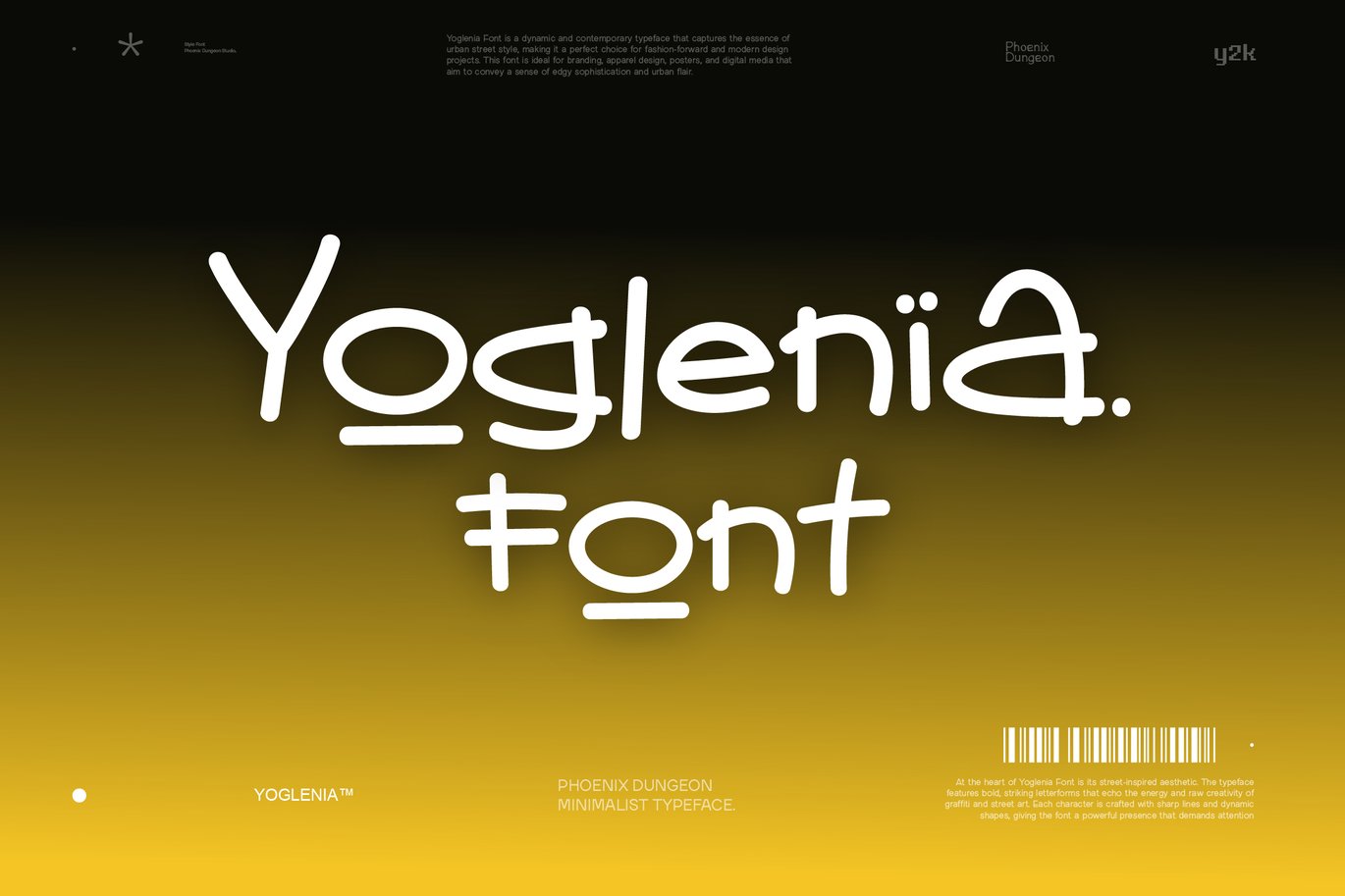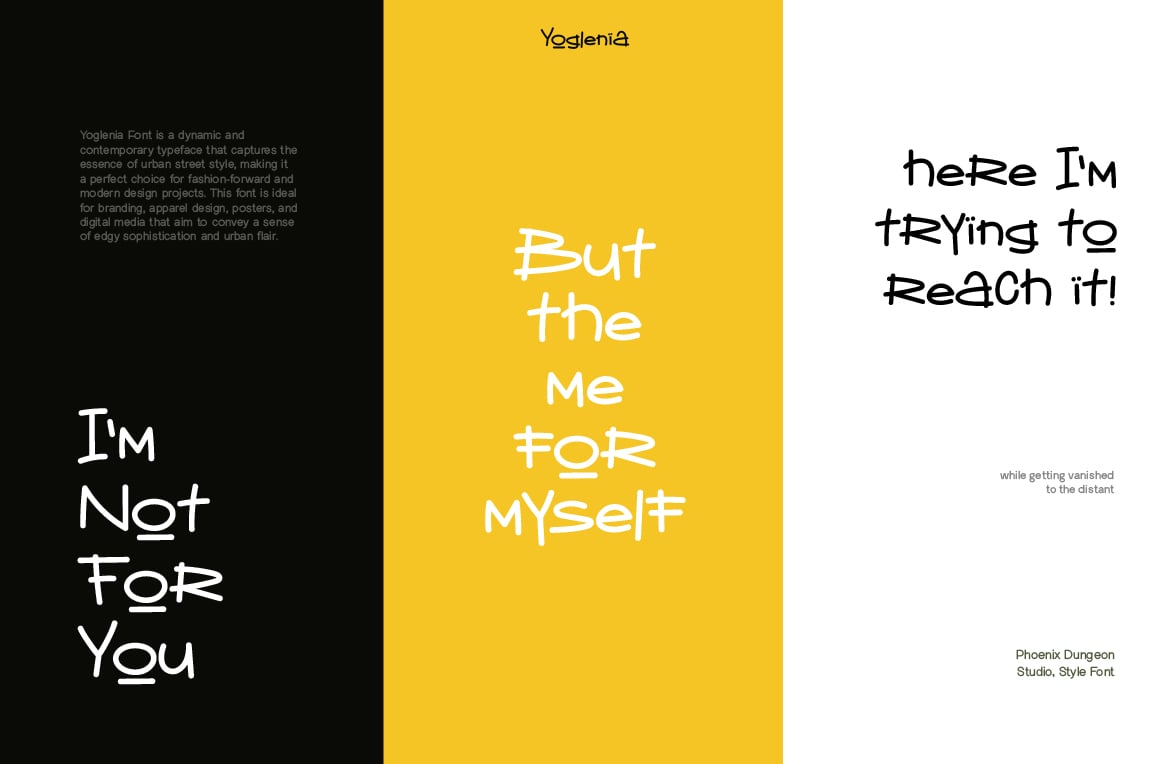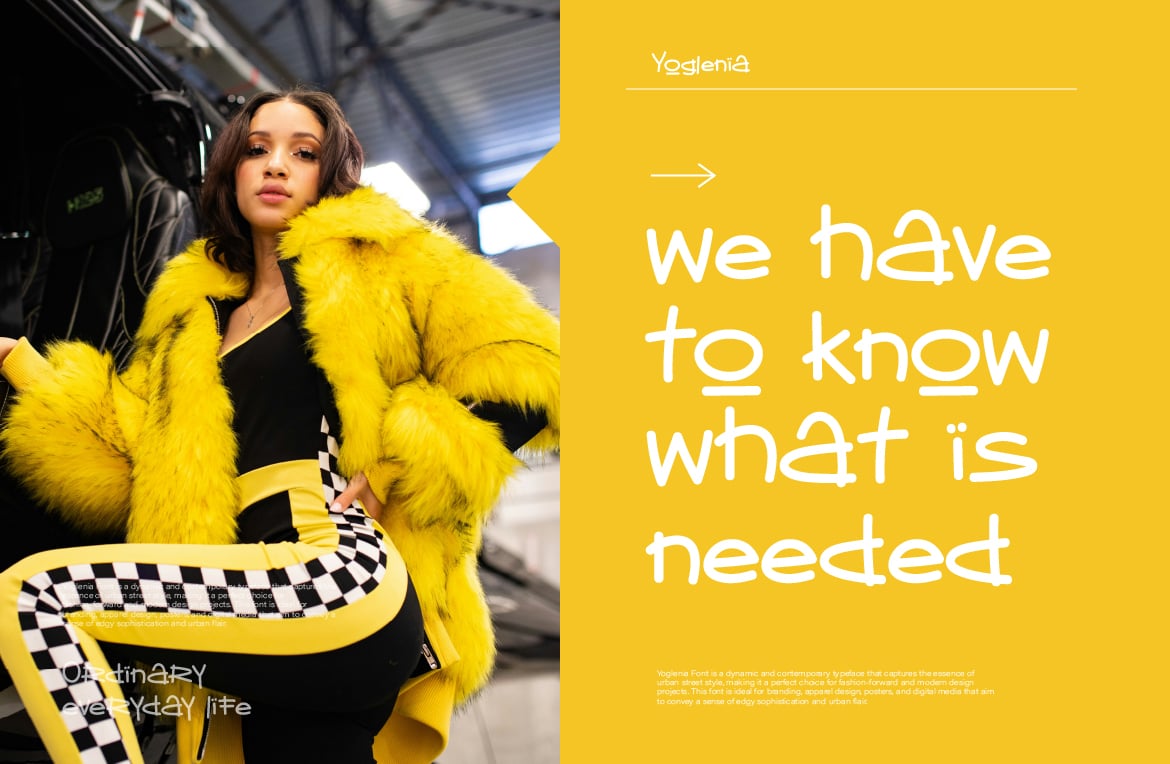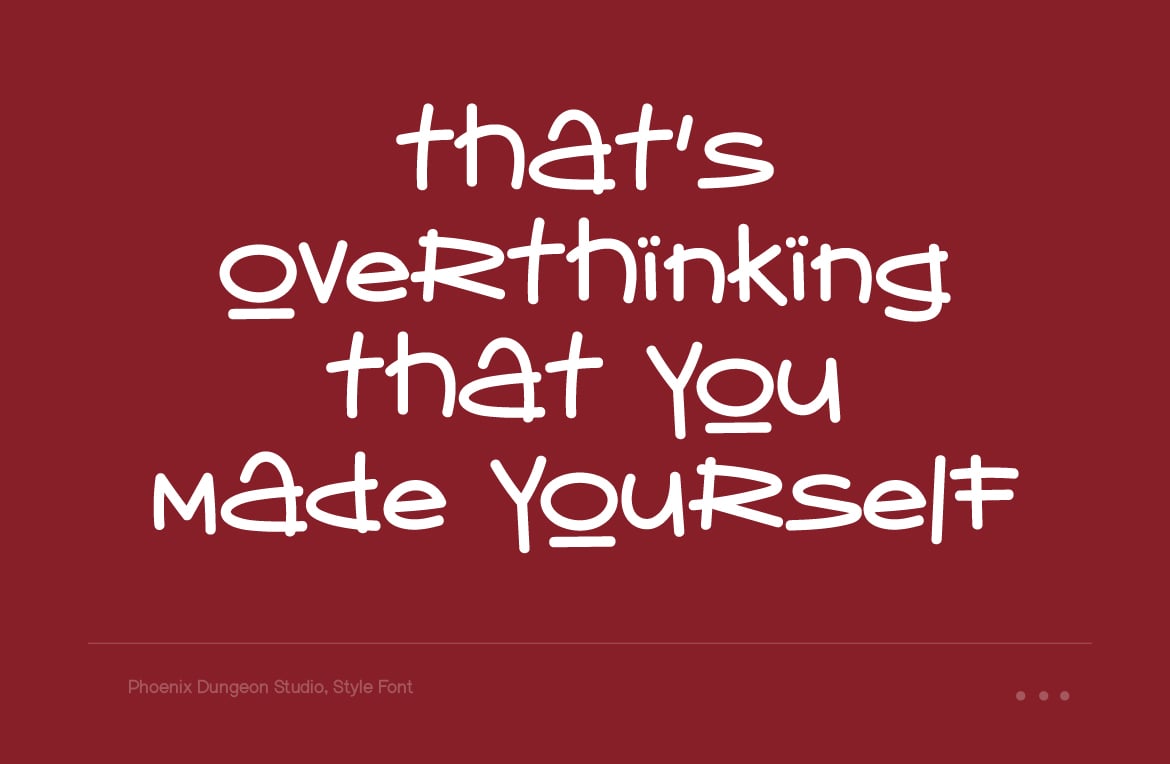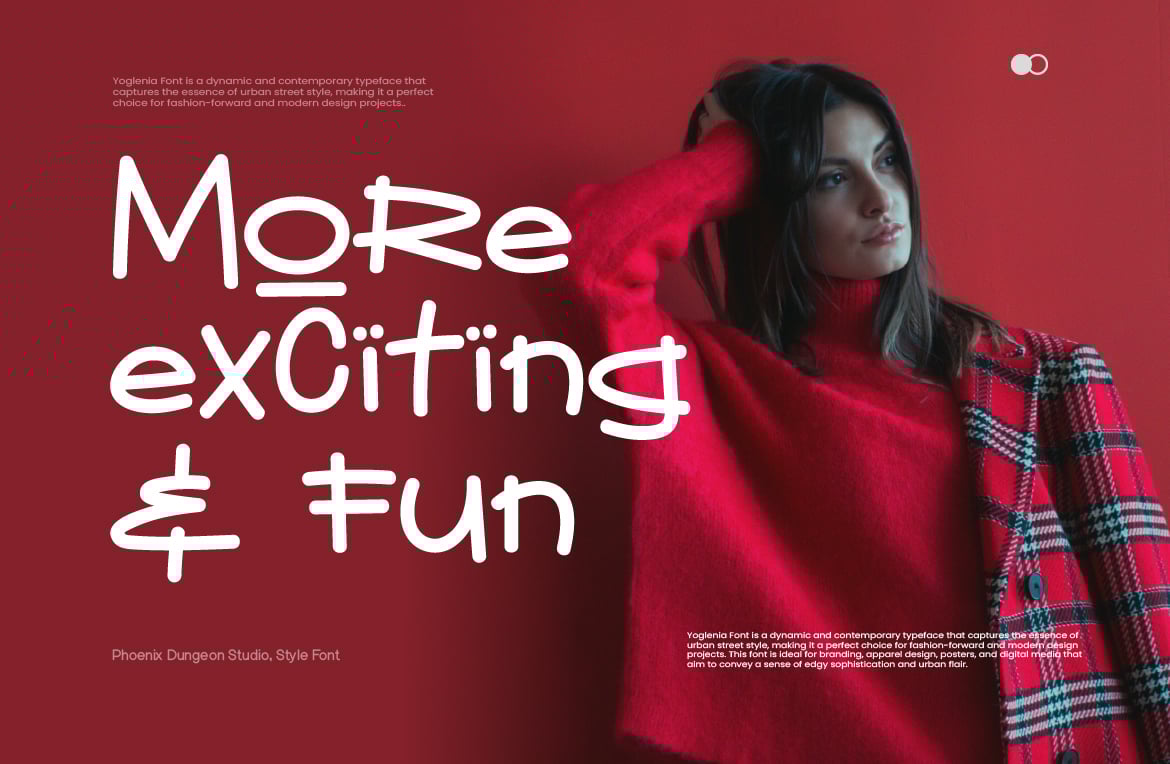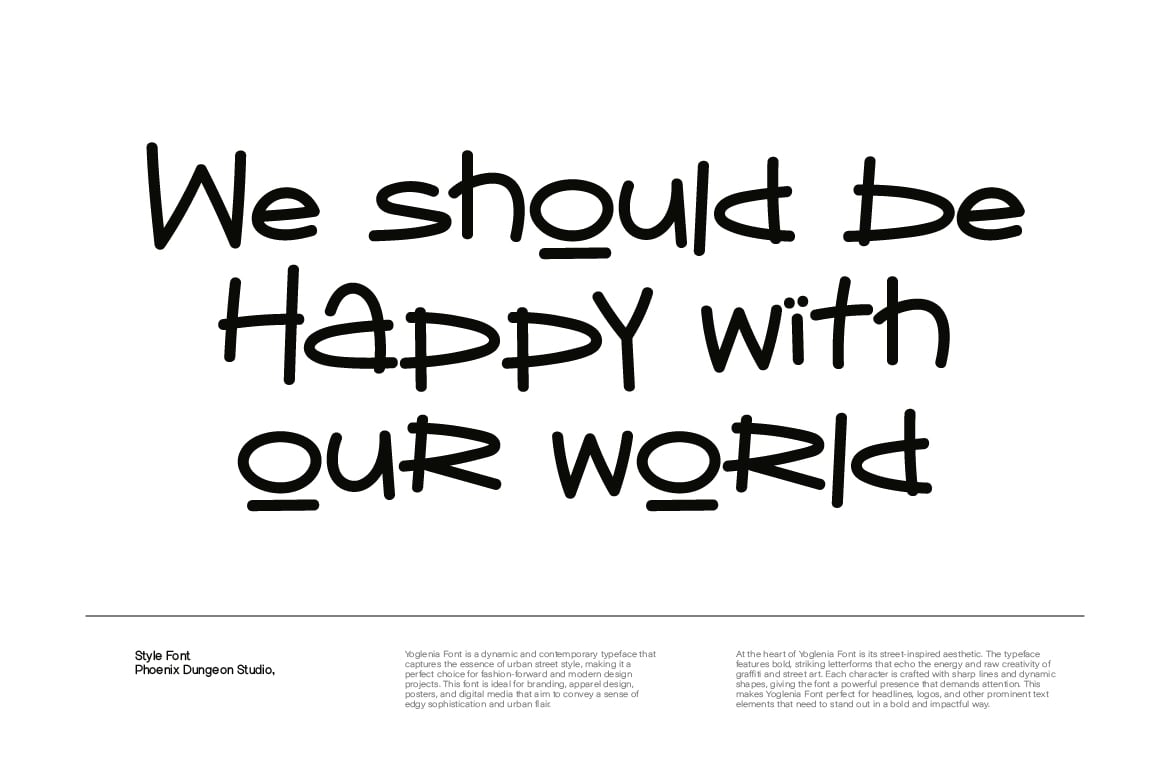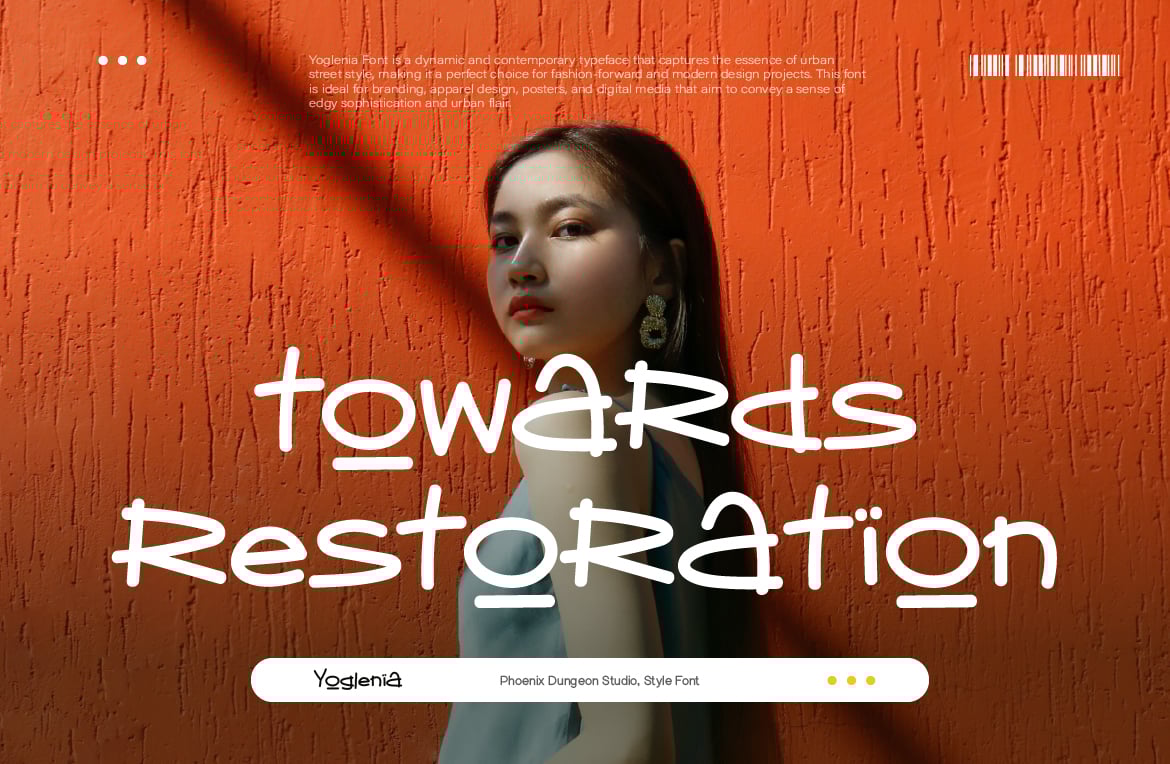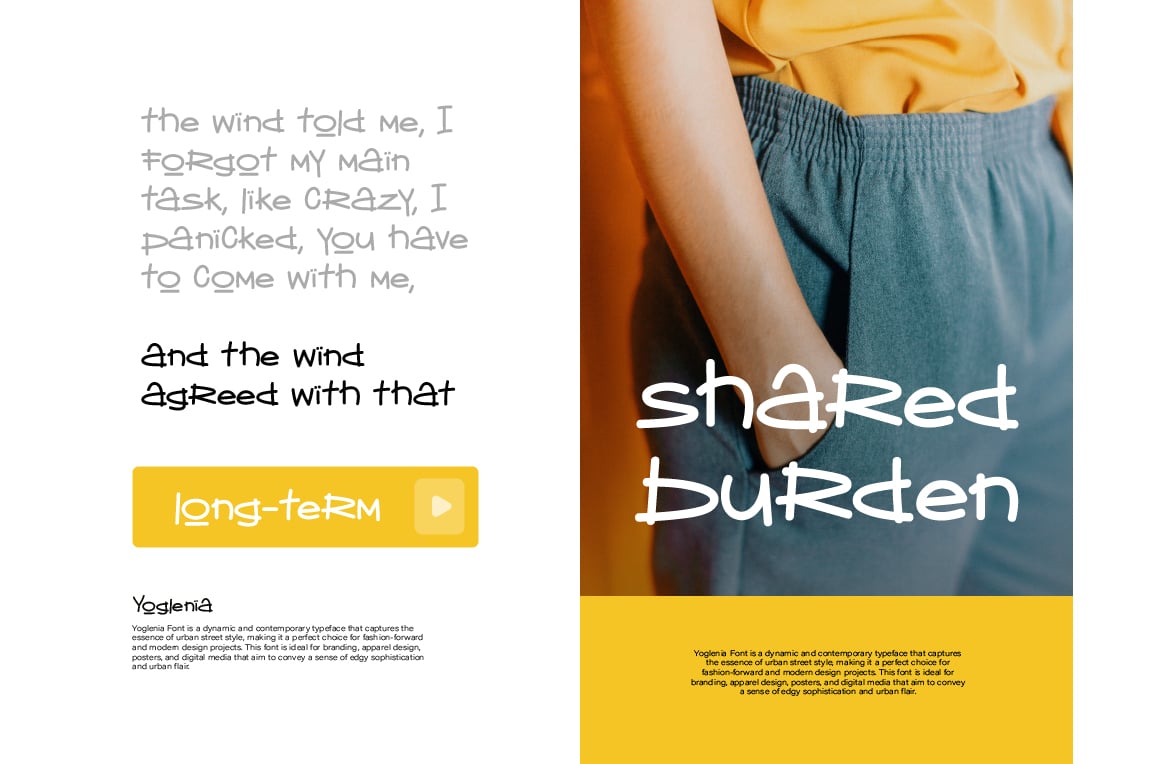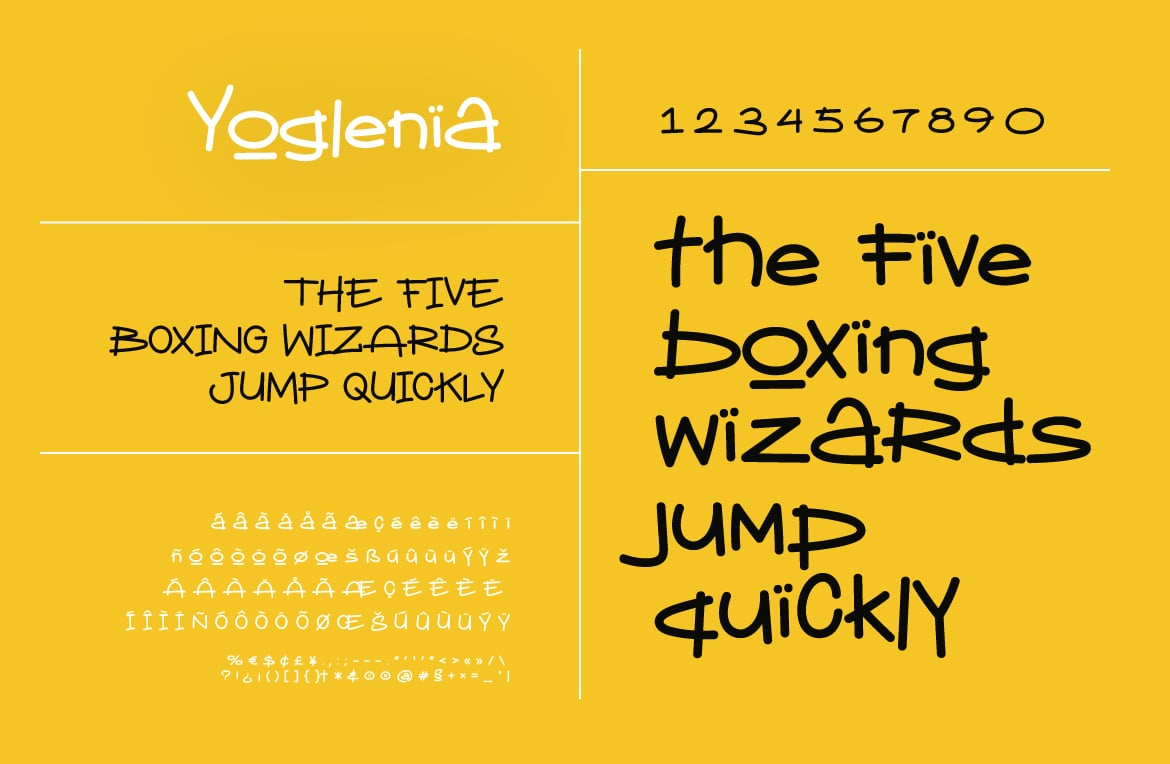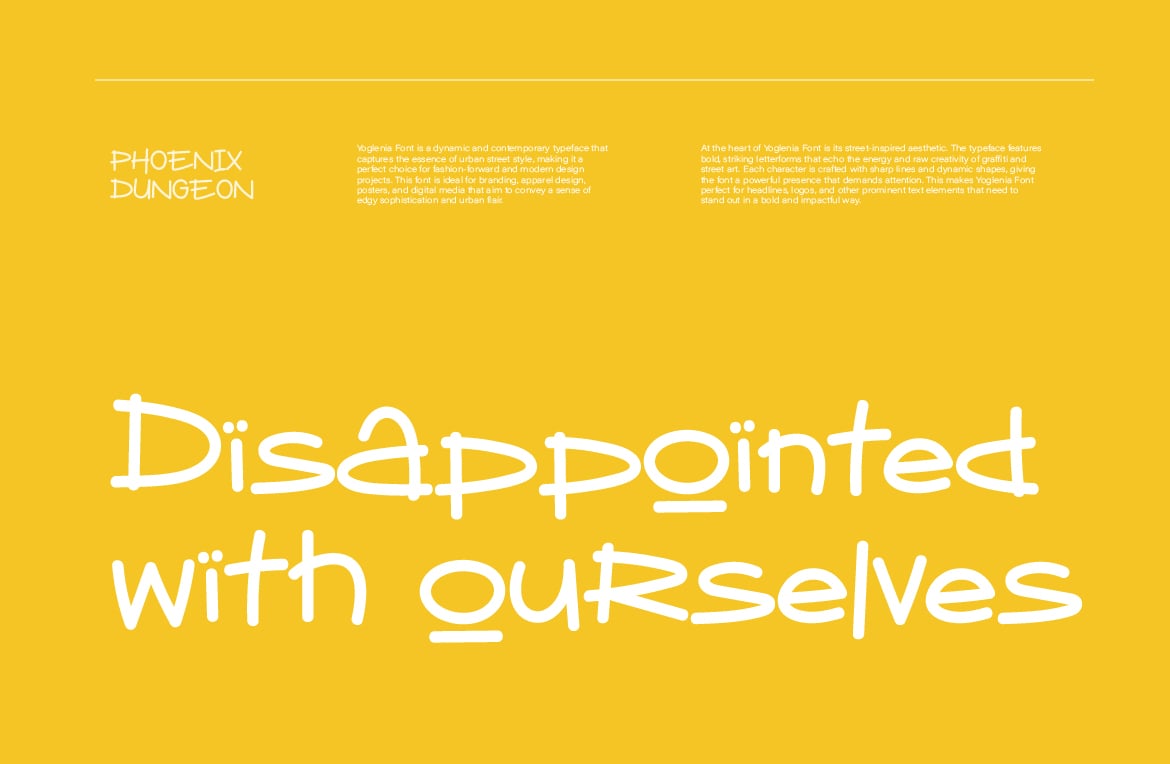
Yoglenia Font
Yoglenia Font is a dynamic and contemporary typeface that captures the essence of urban street style, making it a perfect choice for fashion-forward and modern design projects. This font is ideal for branding, apparel design, posters, and digital media that aim to convey a sense of edgy sophistication and urban flair.